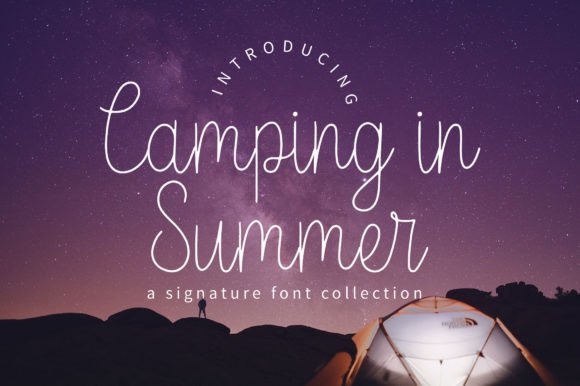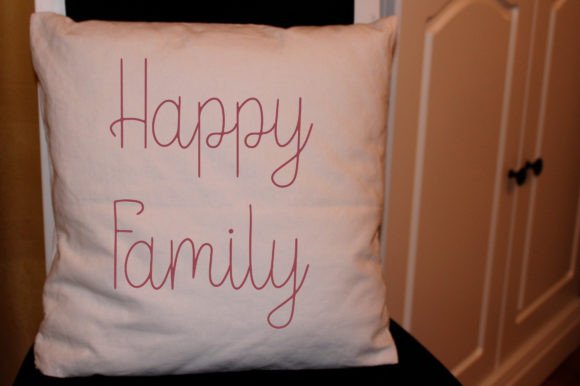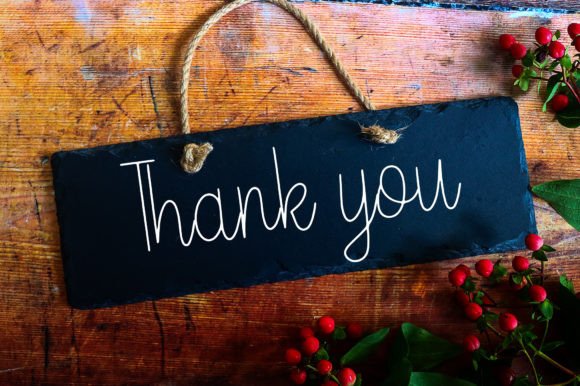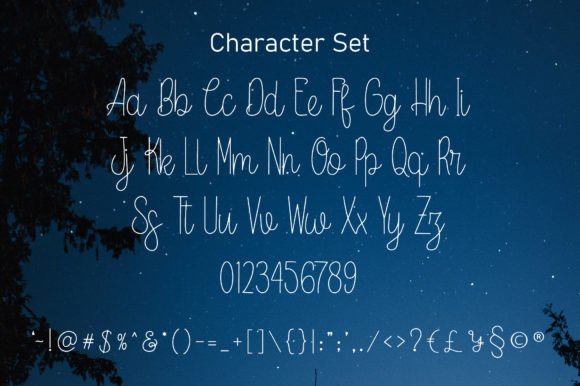
Camping in Summer Font
A Flowing and Elegant Handwritten Font
Camping In Summer is a beautiful handwritten font with flowing strokes that add an elegant touch to your designs. Each letter is crafted with graceful curves, making it perfect for projects that need a timeless and sophisticated style. The font has a relaxed yet refined look, making it suitable for a variety of creative uses.
Whether you’re working on wedding invitations, social media graphics, or branding, Camping In Summer helps bring your designs to life with its unique and charming personality.
Camping In Summer is a versatile font that fits beautifully into various design projects. It’s ideal for wedding invitations, save-the-date cards, and event signage. The flowing script style adds a refined and romantic feel to any special occasion.
Use Camping In Summer for logos, branding, and business cards. The elegant design helps your brand feel polished and professional while maintaining a warm, personal touch.
This font is also great for greeting cards, thank-you notes, and personal stationery. The flowing characters bring a sense of personality and charm to every message.
Camping In Summer works wonderfully for product packaging, boutique labels, and merchandise. Its elegant script style adds a premium feel to any product, making it stand out in the market.
Clear, Elegant, and Easy to Read
Despite its decorative style, Camping In Summer remains clear and legible at any size. The balanced spacing between letters ensures that your text stays neat and readable, whether you’re using it for large headlines or smaller captions.
Many designers pair Camping In Summer with a clean sans-serif font for contrast. Use Camping In Summer for titles and headlines, and the sans-serif for supporting text. This pairing creates a beautiful contrast and ensures readability across your design.
To showcase Camping In Summer’s elegant style, use soft backgrounds and neutral color palettes. Shades like ivory, blush, and warm beige help the graceful strokes stand out without distraction.
When designing wedding materials or luxury branding, consider adding delicate floral illustrations or watercolor accents to complement the font’s romantic feel. For social media graphics and marketing materials, keep your layouts simple to ensure the font remains the focal point.
Think about the mood you want to convey. Camping In Summer is perfect for designs that should feel warm, timeless, and sophisticated.
Camping In Summer is more than just a handwritten script font. It’s a creative tool that transforms your designs with its elegant and flowing strokes. Its timeless character brings beauty and sophistication to any project.